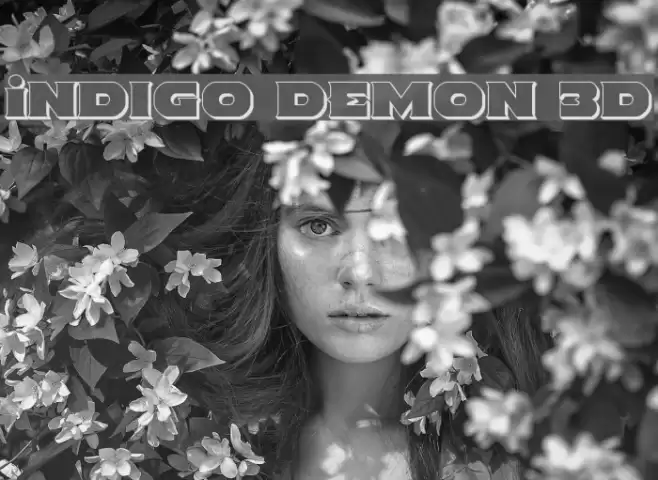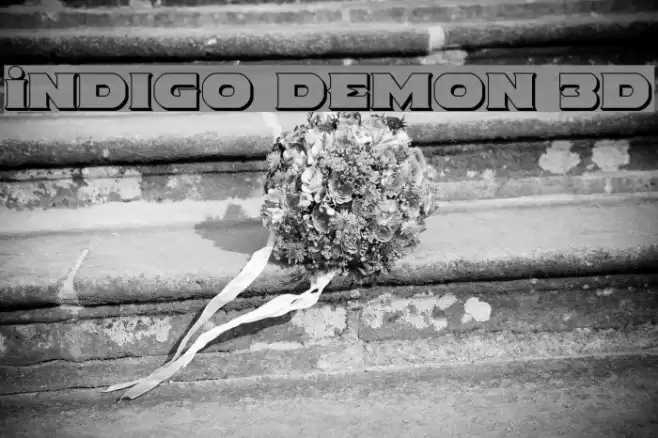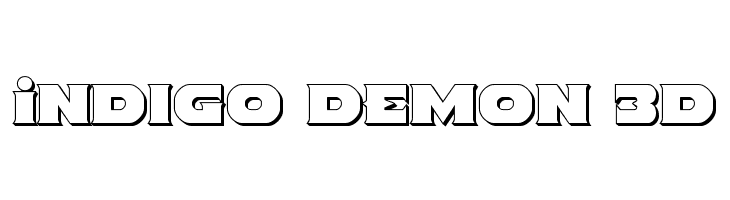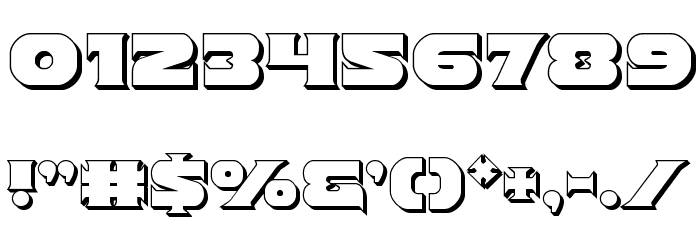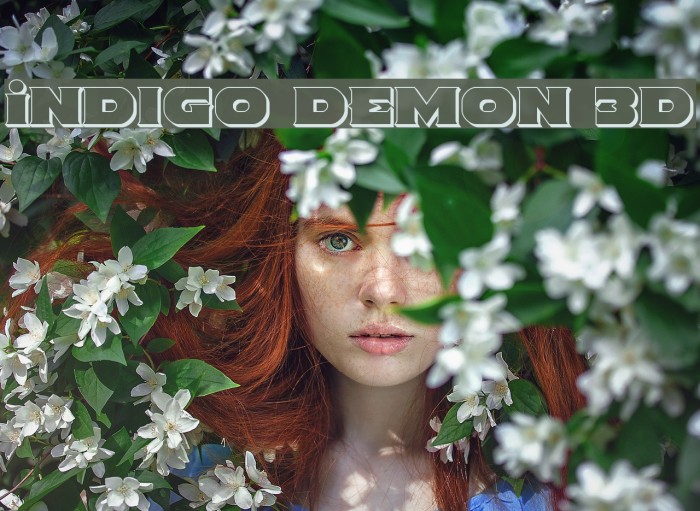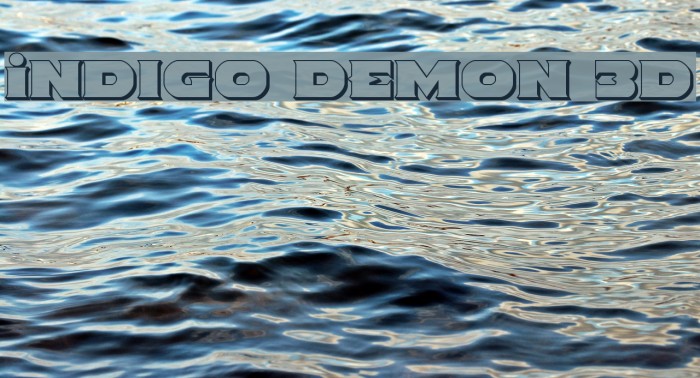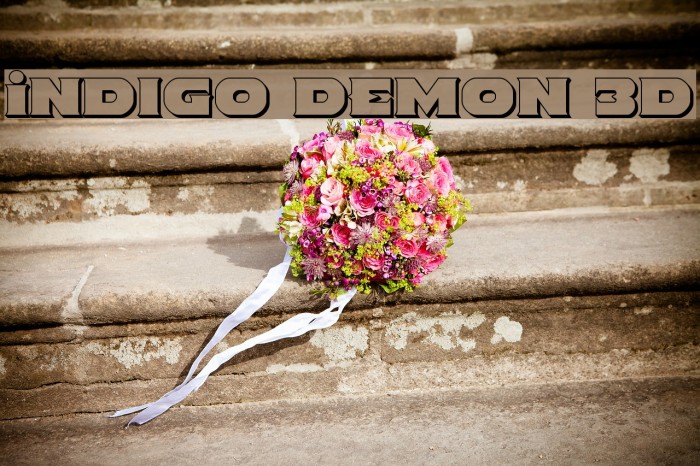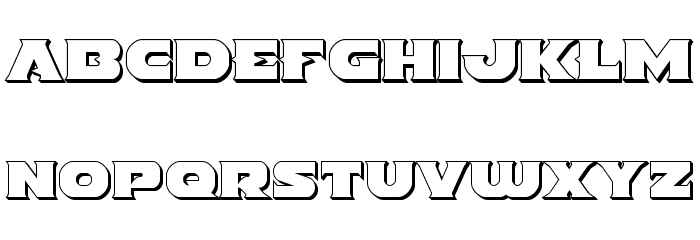
Indigo Demon 3D Font
Indigo Demon 3D Description
This font features a bold, three-dimensional design with a distinct shadow effect, giving each character a sense of depth and volume. The geometric shapes are sharp and angular, contributing to a futuristic and edgy appearance. The uppercase and lowercase letters maintain a consistent style, with uniform thickness and clear, defined edges. The numbers and special characters are designed to match the overall aesthetic, ensuring a cohesive look across all glyphs. This font's unique style makes it stand out, perfect for projects that require a modern and impactful visual statement.
A bold, 3D geometric font with a futuristic and edgy style from Modern fonts.
- Proposed Projects: Ideal for video game titles, sci-fi movie posters, tech branding, and modern digital art.